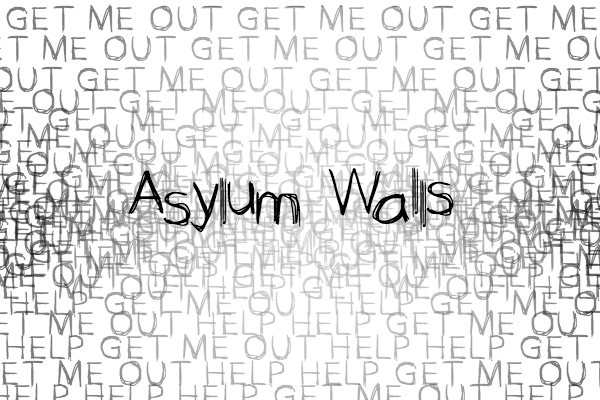
Asylum Walls Font
About Asylum Walls Font
Asylum Walls is a scratchy font suited to horror projects, edgy projects, and more! This handwritten script has an organic appeal and although highly textured, is legible enough for a wide range of uses.